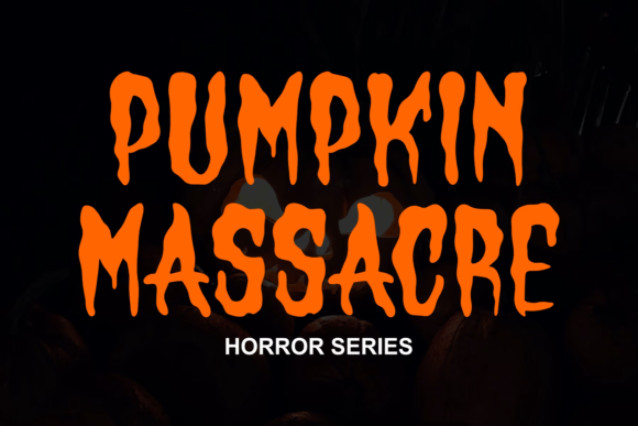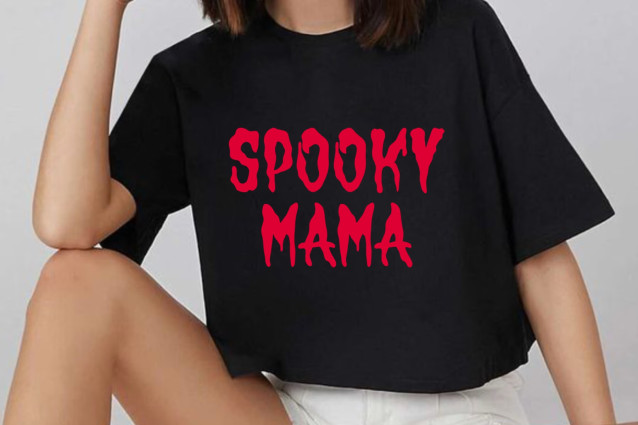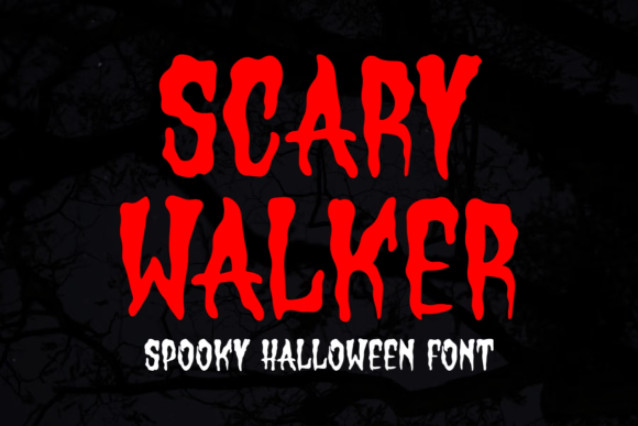
Scary Walker Font
Scary Walker is a bold, dripping horror display font designed for spooky themes and Halloween events. Its tall, condensed letterforms feature irregular, liquid-like edges that mimic melting wax, blood, or slime, giving any text an instant sense of dread and playfulness.
Best suited for horror movie posters, Halloween party invitations, spooky apparel, book covers, and themed event signage. This typeface is a natural fit for merchandise, YouTube thumbnails, and social media graphics that need a classic, creepy aesthetic.